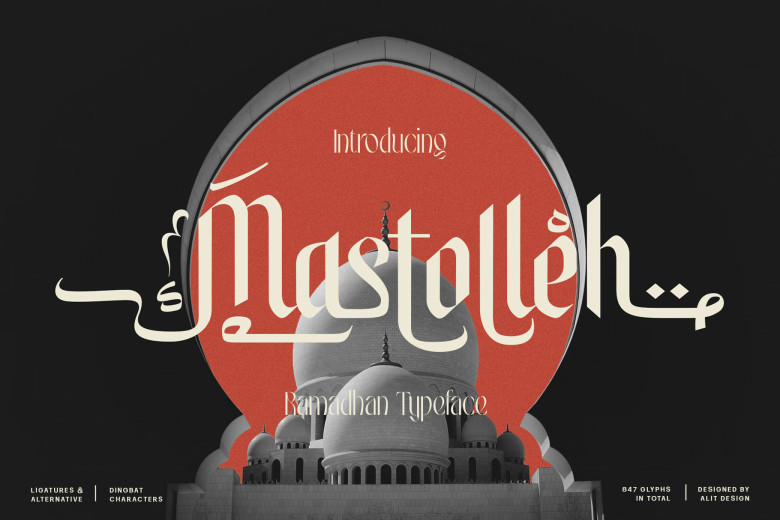
Mastolleh Font
Mastolleh is another Arabic Font that comes with blackletter style and beautiful swashes, which users can use in their design projects. This font is suitable for users who wish to add a font that can handle various writing systems and special characters. It also has support for multiple languages. Moreover, this font contains PUA Unicode.
Mastolleh Arabic Display Font